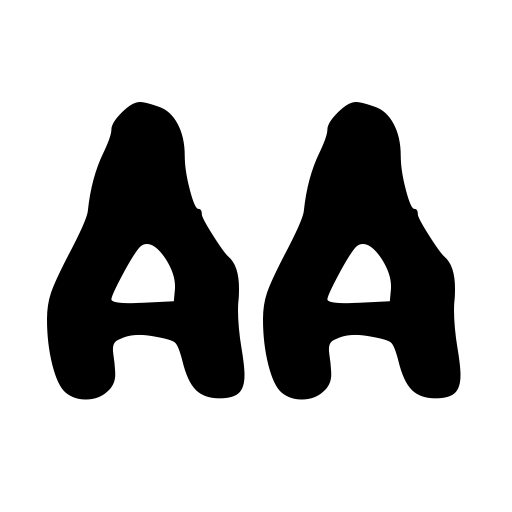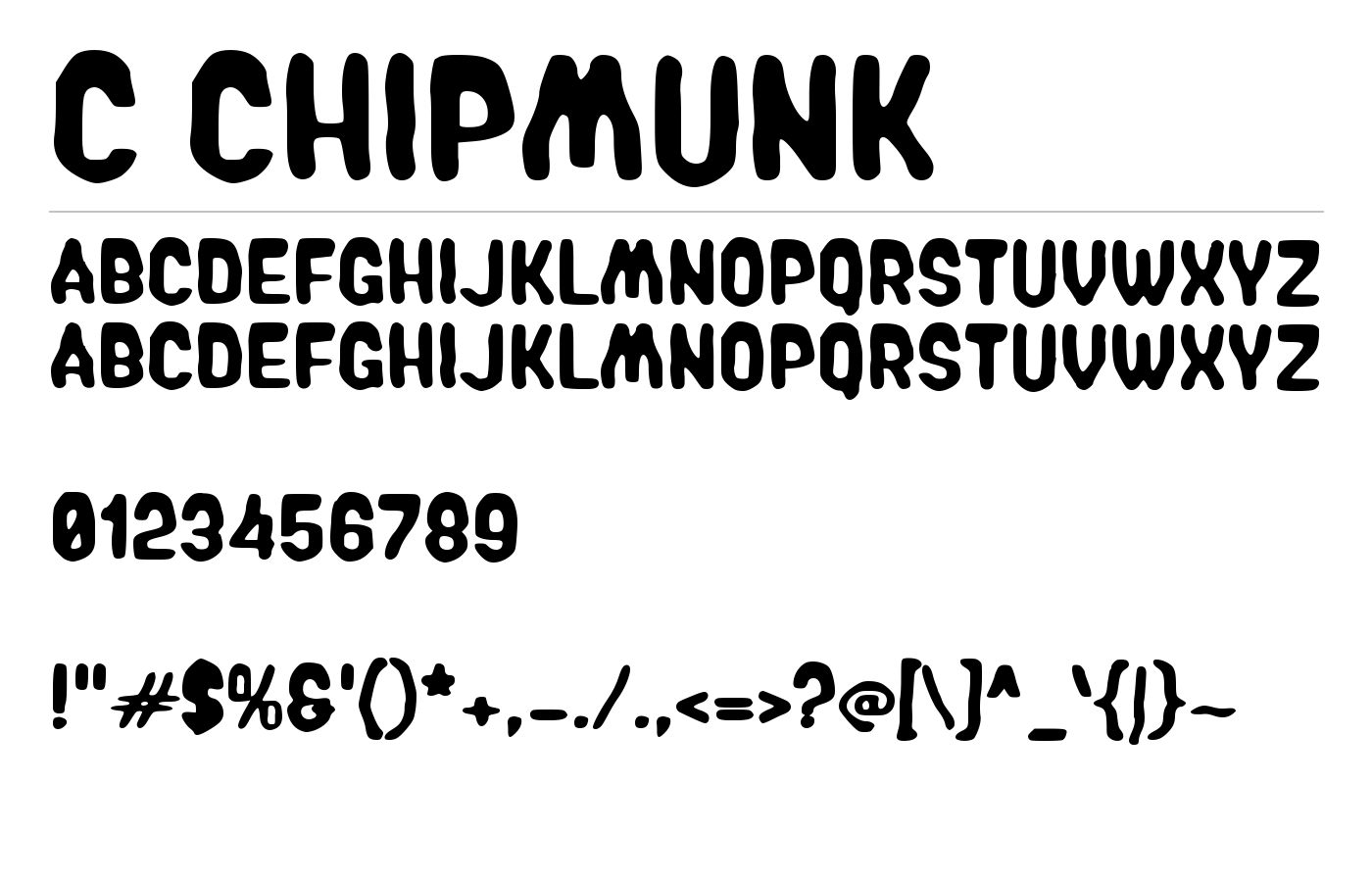
C Chipmunk is a playful, bold sans serif font with rounded, irregular shapes that give it a friendly and informal feel. Its thick, uniform strokes and quirky letterforms make it ideal for fun, eye-catching designs such as children's books, posters, and casual branding. This font works well where a warm, approachable vibe is needed, bringing a sense of whimsy and personality to any project.
c Chipmunk Font
About c Chipmunk Font